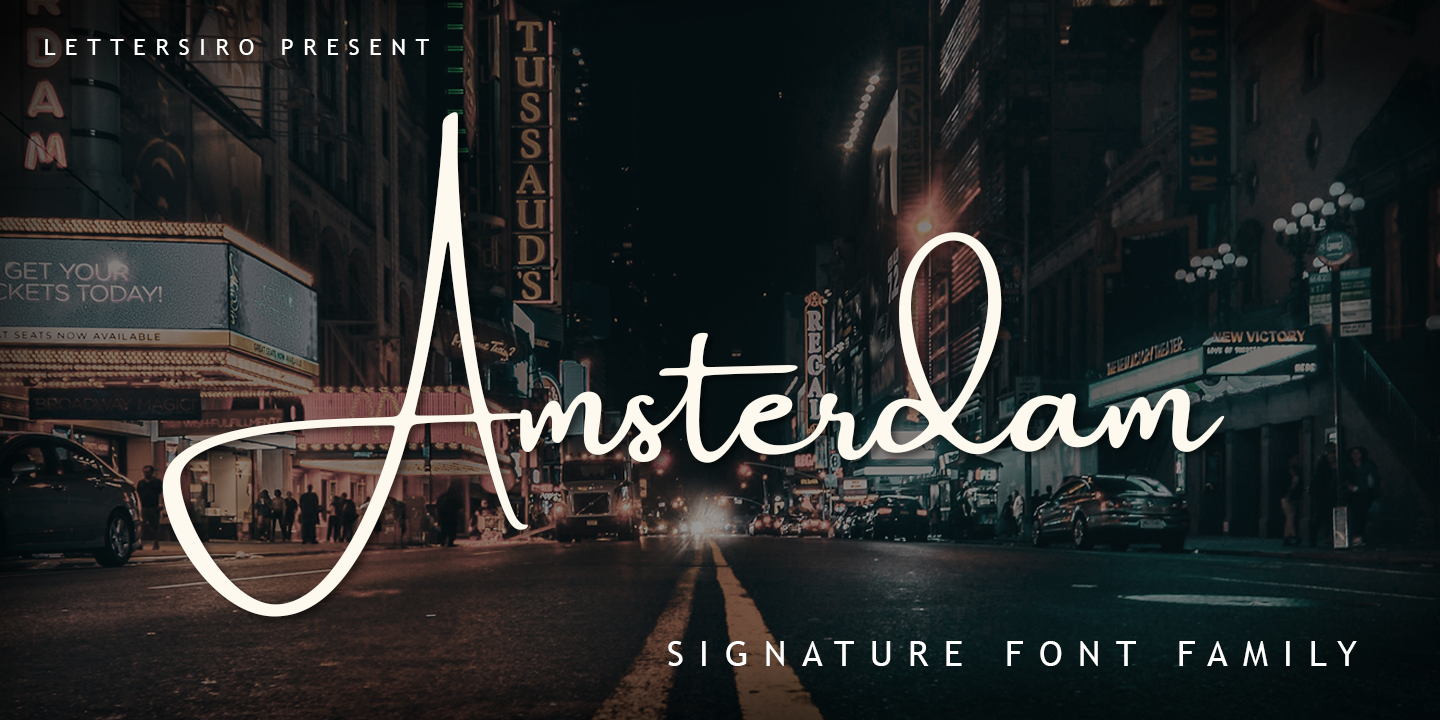
Amsterdam Signature Font is perfect for elegant personal branding, sophisticated business signatures, luxury hotel materials, upscale boutique logos, refined wedding invitations, exclusive restaurant menus, premium lifestyle magazines, and distinguished design projects that require authentic signature typography with European elegance and cosmopolitan sophistication.
This Amsterdam Signature Font is exciting because it captures the refined elegance of European penmanship with flowing signature-style letterforms that evoke the cultural sophistication of Amsterdam's canal houses and artistic heritage, featuring graceful connections and refined character details that convey luxury and personal distinction while maintaining excellent legibility.
The Amsterdam Signature Font family includes elegant weights with signature styling, complete character sets with sophisticated uppercase and lowercase letters, refined numerals, graceful punctuation, and European symbols that provide comprehensive typography solutions for luxury and personal branding projects requiring authentic signature aesthetics and cosmopolitan appeal.
Perfect for creating distinguished personal communications and luxury brand identities, Amsterdam Signature Font Free Download delivers the sophisticated signature typography that transforms text into elegant expressions of European refinement and personal prestige. This distinctive typeface embodies the essence of Dutch cultural sophistication and artistic heritage, making it essential for projects celebrating European elegance, personal distinction, luxury branding, and any design requiring signature character with authentic cosmopolitan sophistication and timeless European charm that conveys cultural refinement.